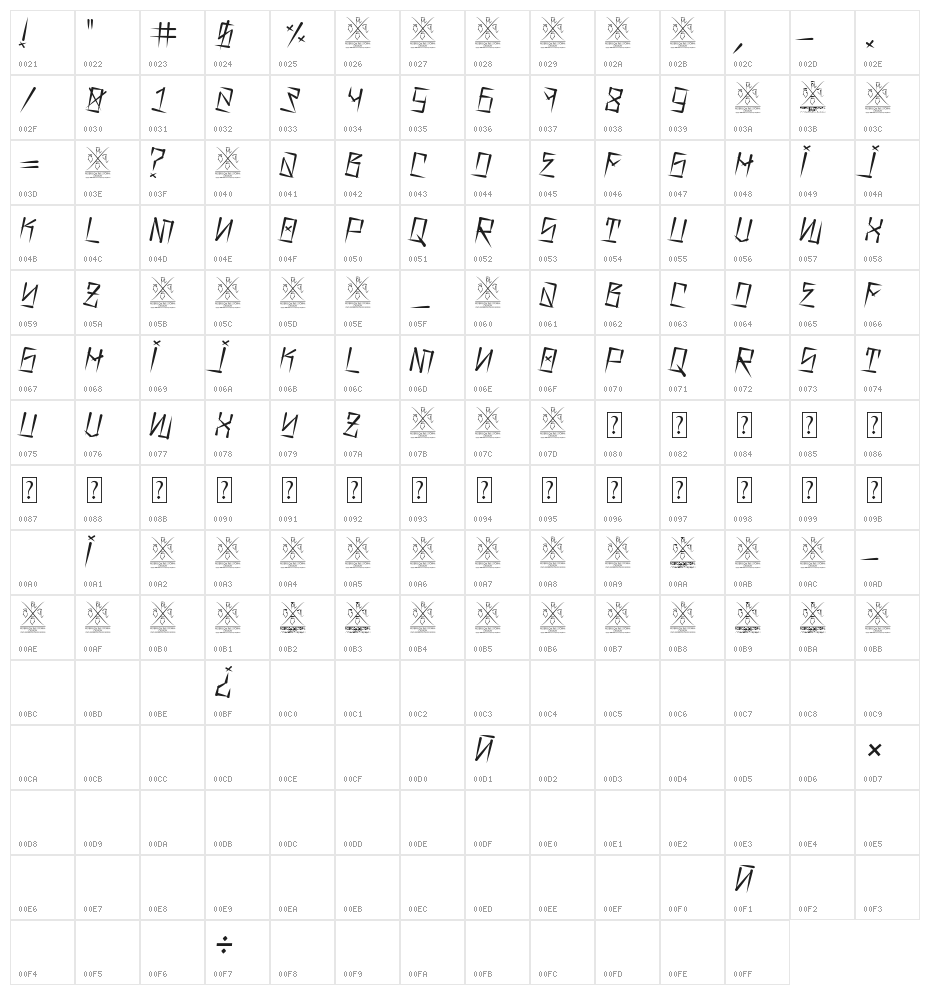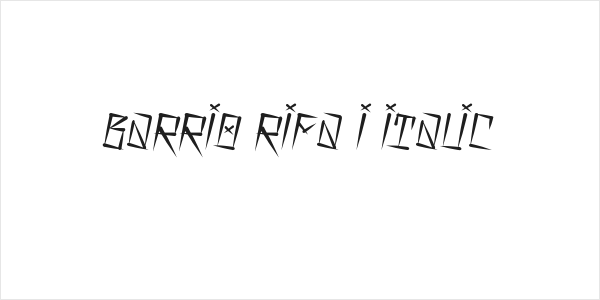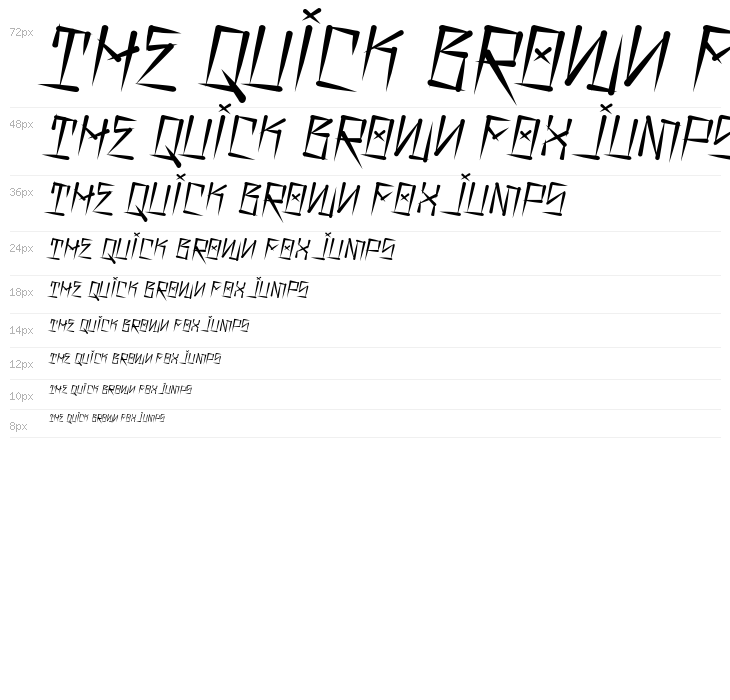
Barrio Rifa I Italic Font
Barrio Rifa I Italic Description
This font features a bold, angular design with sharp edges and a distinct geometric style. The characters are italicized, giving them a dynamic and energetic appearance. The uppercase and lowercase letters maintain a consistent angular theme, with some characters incorporating unique diagonal cuts and extensions. The numbers and special characters follow the same stylistic approach, ensuring uniformity across the font. The overall design is striking and modern, making it suitable for projects that require a bold and edgy aesthetic.
| Proposed Projects | Ideal for use in urban-themed designs, music album covers, graffiti art, and edgy branding projects. |